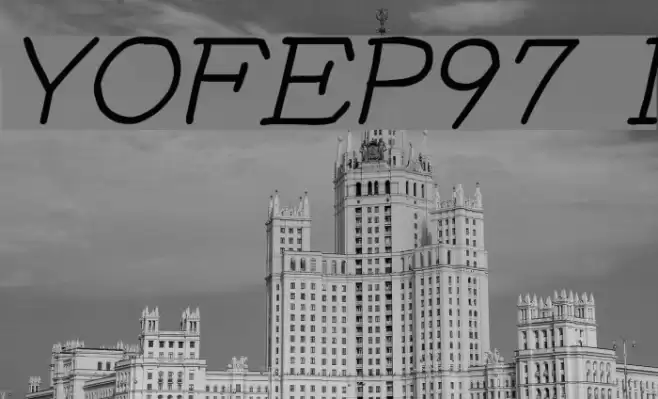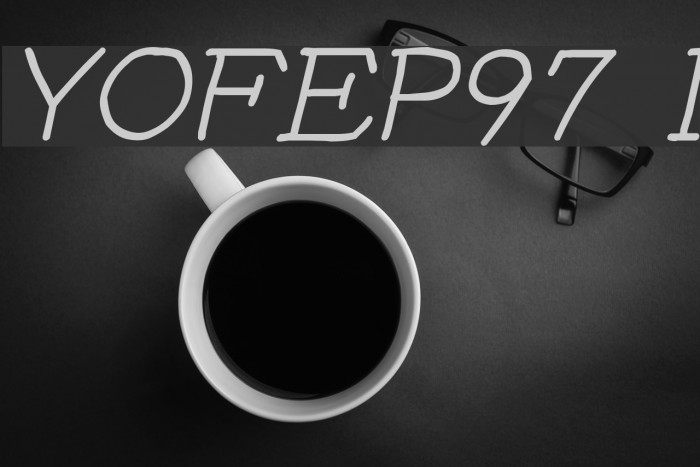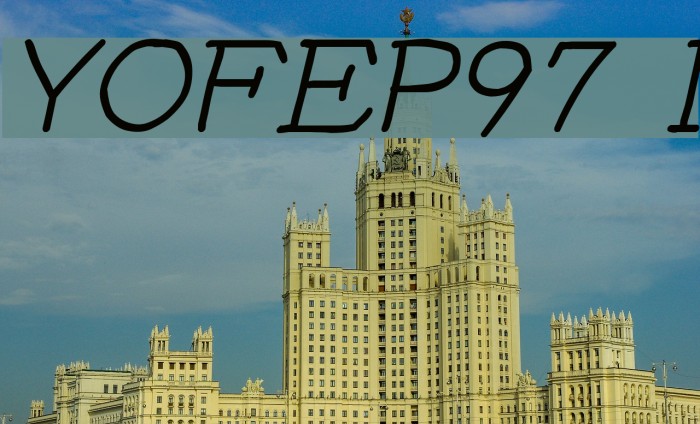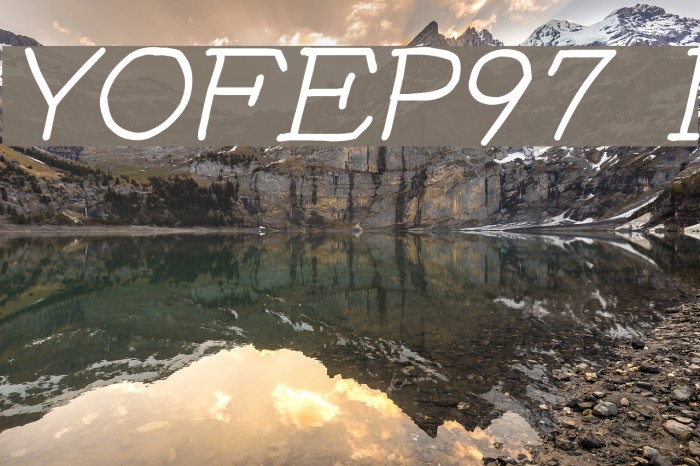
YOzFontEP97 Italic Font
YOzFontEP97 Italic Description
This font exhibits a classic italic style with a smooth and flowing appearance. The letters are slightly slanted to the right, giving it a sense of motion and elegance. The strokes are consistent in thickness, providing a uniform look across all characters. The uppercase letters are well-proportioned, while the lowercase letters maintain a harmonious balance with their taller counterparts. The numerals are clear and legible, matching the overall style of the alphabet. Special characters are included, maintaining the same italicized flair. This font is versatile, suitable for both formal and informal applications, and can add a touch of sophistication to any design.
An elegant italic font with smooth, flowing strokes and consistent thickness from Uncategorized fonts.
- Overall Style: Classic